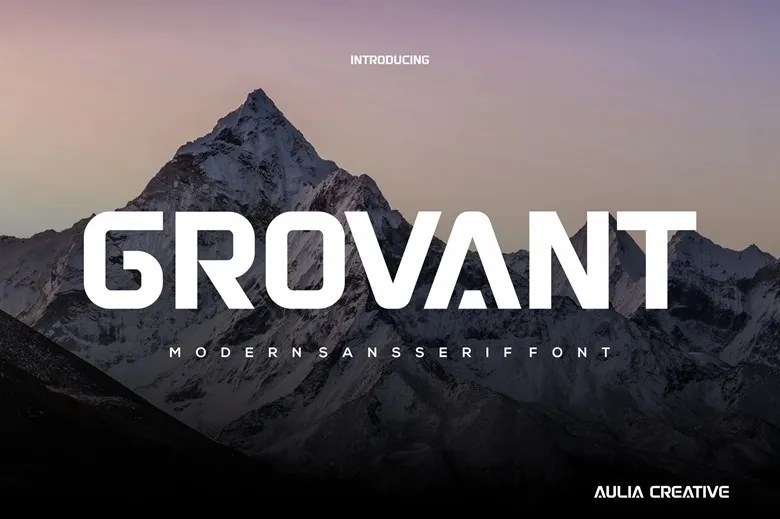
Grovant Font
Grovant is a modern and authentic sans serif font, perfect for a wide variety of design projects. Its clean lines and minimalist aesthetic make it an excellent choice for creating professional and polished designs. Whether you’re working on a branding project, crafting logos, or designing web elements, Grovant’s sleek design offers a timeless appeal that suits every creative need.
Features of Grovant Font
Grovant stands out for its simplicity and versatility. Its clean sans serif design ensures readability and adaptability, making it a reliable option for both digital and print media. With its balanced proportions and uncluttered appearance, this font complements a range of creative styles, from corporate branding to casual layouts.
Ideal Uses
The flexibility of Grovant makes it a popular choice for various applications. Here are some ways you can use this font:
• Logos and Branding: Create modern and professional logos that leave a lasting impression.
• Digital Media: Enhance the visual appeal of websites, social media posts, and digital advertisements.
• Print Materials: Add a sleek and contemporary touch to business cards, brochures, posters, and packaging.
• Editorial Design: Use Grovant for headlines and body text in magazines, books, or online articles.
Why Choose Grovant?
Grovant’s design embodies timeless simplicity, making it an excellent fit for projects that demand elegance and clarity. Its versatility ensures that it works well in both large and small formats, maintaining a polished appearance across all platforms. Whether you’re designing for professional use or personal creativity, Grovant delivers exceptional results.